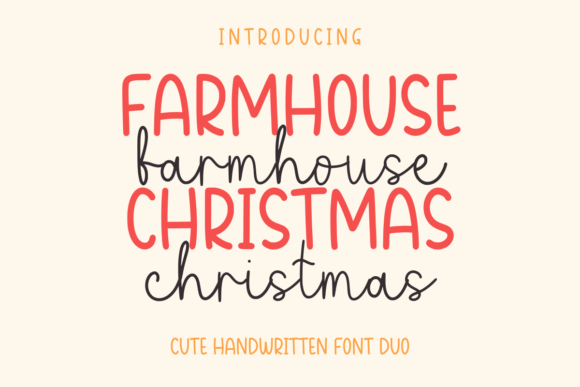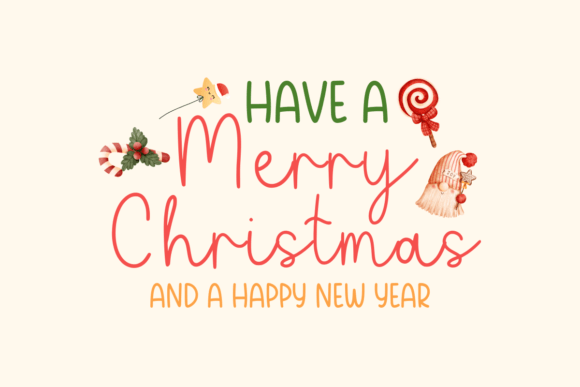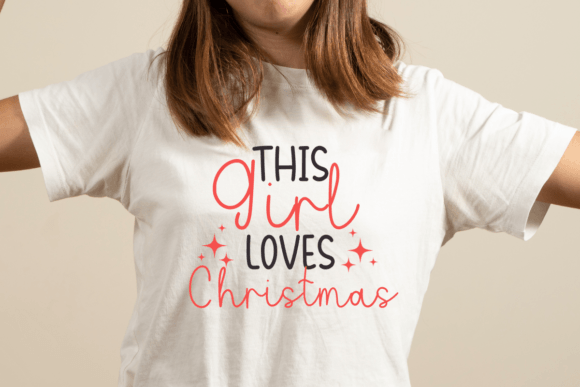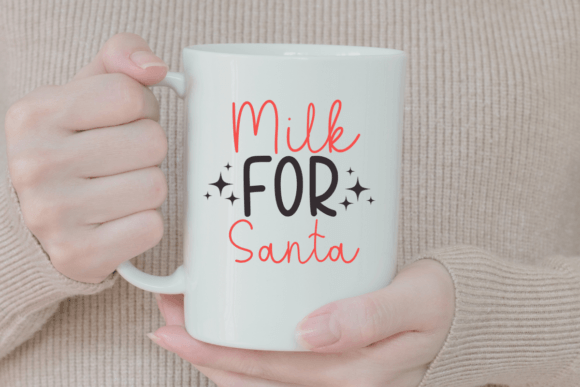
Farmhouse Christmas Font
About the Farmhouse Christmas Font
Experience the unique personality of Farmhouse Christmas Font, a font designed for impact. Farmhouse Christmas is a cute handwritten font duo (handwritten script and monoline). Great for quotes, t-shirts, tote bags, greeting cards, mugs and any design that needs a fun look.
This font duo shines in projects requiring a touch of rustic charm and playful warmth. Ideal applications include holiday-themed designs, branding for small businesses with a handcrafted feel (bakeries, craft shops), and packaging for food or gift items. Its informal nature makes it perfect for short, impactful phrases on social media graphics or seasonal merchandise. However, avoid using it for lengthy text or UI elements; its legibility suffers in smaller sizes or continuous paragraphs.
Consider pairing Farmhouse Christmas with a clean sans-serif like Lato for contrast and readability in supporting text. For a more sophisticated look, a classic serif like Playfair Display could add a touch of elegance, while a simple geometric sans-serif would provide a modern counterpoint.
Farmhouse Christmas projects a friendly, approachable personality, embodying a sense of cozy nostalgia. Its hand-drawn quality evokes authenticity and warmth, making it suitable for brands that value a handmade aesthetic and personal connection with their audience.
Farmhouse Christmas Font Usage Examples
Farmhouse Christmas Font Example